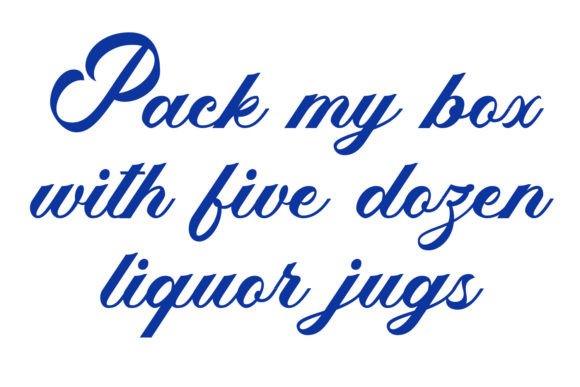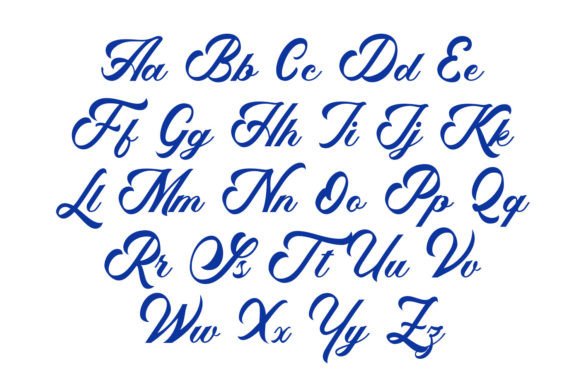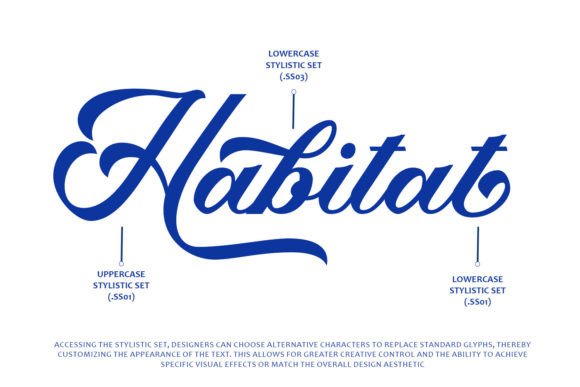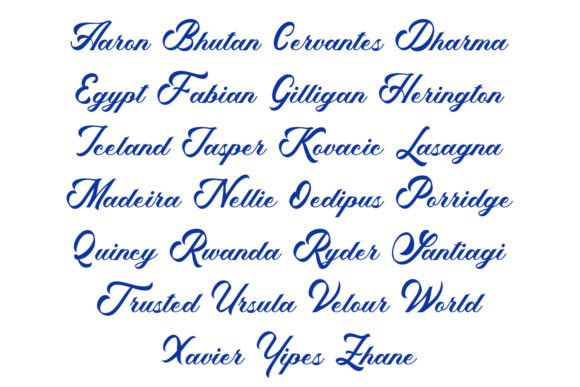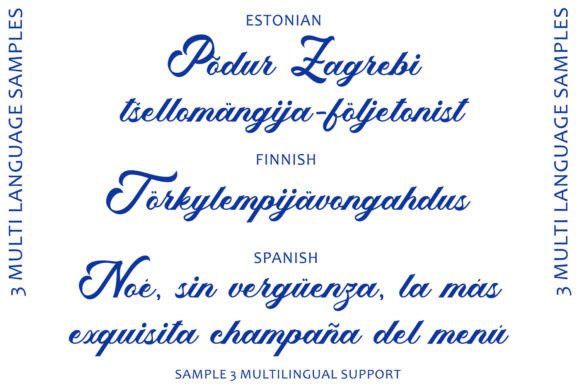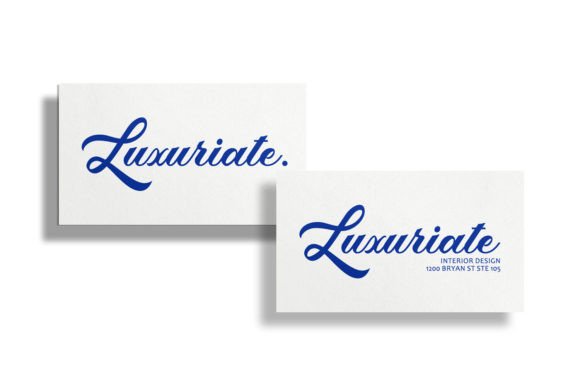
Introduction to Ganglion Font
The Ganglion font is a robust and commanding script typeface that exudes strength and boldness, making it a standout choice for various design applications.
With its strong and bold letterforms, Ganglion commands attention and makes a powerful statement The fontโ€™s assertive script style conveys confidence and authority, making it ideal for impactful headlines, logos, and branding materials.